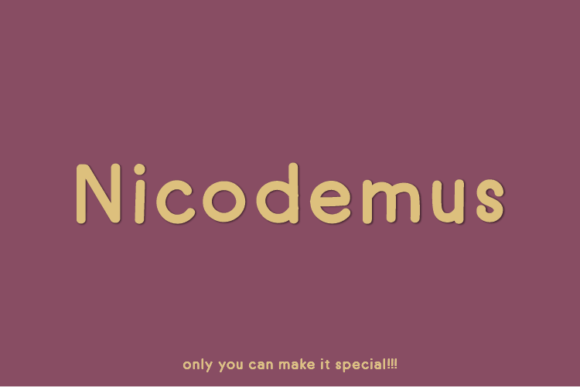
Unleash the Power of Expression with Nicodemus: The Aesthetic Champion
In a world of bland and monotonous fonts, Nicodemus emerges as a breath of fresh air, a sans serif font that captivates with its organic charm and captivating allure. Meticulously crafted by the visionary Hanna Bie, Nicodemus is a font like no other, born from the artist's unwavering commitment to originality and excellence.
With its inherent authenticity, Nicodemus defies the norm, gracefully maintaining the integrity of each character's indentation. This unwavering dedication to preserving the font's natural essence results in a collection of glyphs that exude individuality and character, making each word a work of art.
Immerse yourself in the beauty of Nicodemus, a font that transcends the boundaries of ordinary typography. Let your imagination soar as you explore its boundless potential, transforming ordinary quotes into captivating expressions, mundane notes into poetic masterpieces, and everyday tees into fashion statements. With Nicodemus, your creativity has no limits.